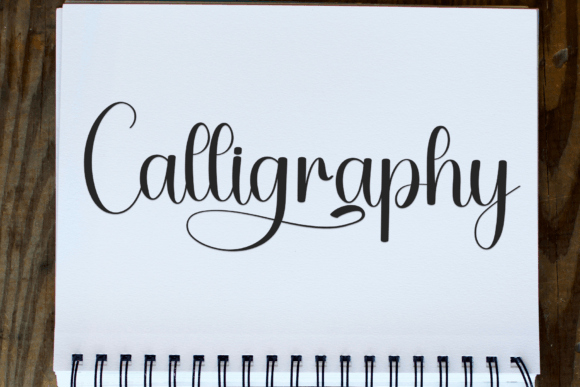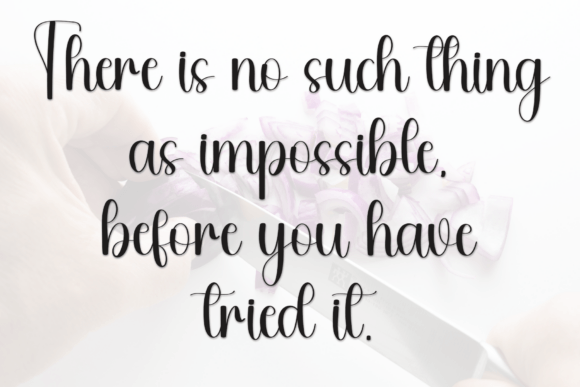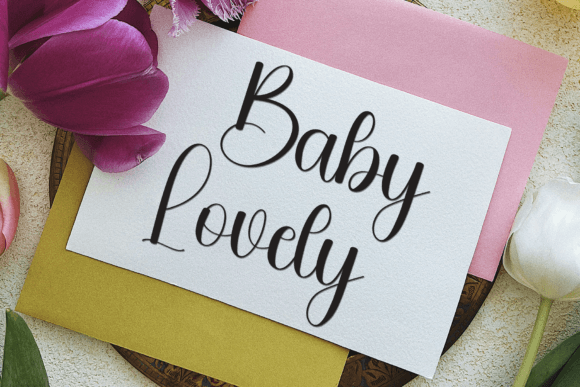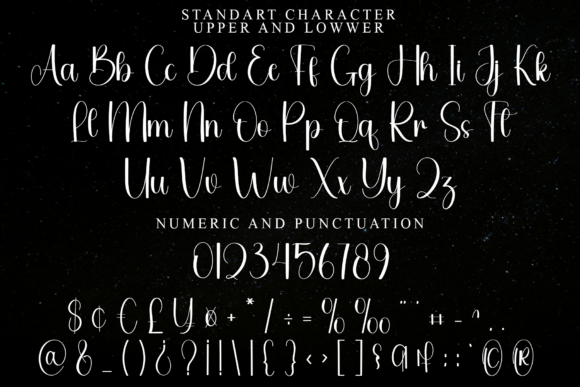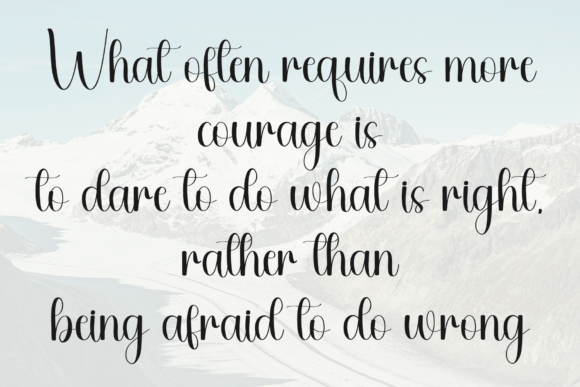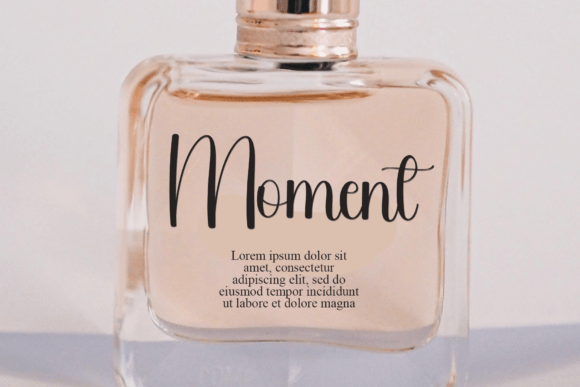
Unleash Your Creativity with the Babyish Font
Do you ever find yourself scrolling through Instagram, mesmerized by the perfect calligraphy or beautifully crafted typography? You’re not alone. We’ve all been there, inspired by the creative genius of others and itching to try our hand at something new. For designers and creatives, finding the right font can be the difference between a good idea and a great one.
Enter the Babyish Font, a magical script font that’s as elegant as it is versatile. With its unique blend of style and sophistication, this font is perfect for anything from Instagram captions to DIY projects. Whether you’re a seasoned designer or just starting out, the Babyish Font is a valuable addition to your toolkit.
So why settle for ordinary when you can have extraordinary? With the Babyish Font, you’ll be able to turn even the most basic ideas into stunning works of art. Get ready to unleash your creativity and make your mark with this beautiful, babyish font.
Babyish Font Key Features
- Unique Characteristics: The Babyish Font features a playful, cursive script with rounded edges and a soft, whimsical feel, making it perfect for children’s products, nursery decor, and family-oriented brands.
Babyish Font Review
Overall, I think Babyish Font is a cute and playful font that can add a touch of whimsy to your designs. ✨ It’s perfect for projects that need a more childlike or vintage vibe. The font is well-documented and easy to use, making it a great option for designers of all levels.
- Unique and quirky design
- Perfect for child-related projects or retro themes
- Well-documented and easy to use
However, I do have a few concerns about the font’s limitations. ⚠️ Firstly, it’s not suitable for formal or professional projects, as it can come across as too playful or immature. Additionally, the font may not be as readable in smaller sizes or for people with visual impairments.
- Not suitable for formal or professional projects
- May not be readable in smaller sizes or for people with visual impairments
Overall, I think Babyish Font is a great option for designers who want to add a touch of whimsy to their projects. With its unique design and ease of use, it’s a great choice for child-related projects or retro themes. However, it’s not a one-size-fits-all solution, and designers should be aware of its limitations.
The Babyish Font is perfect for:
- Children’s products and packaging
- Infant and toddler advertising
Use the Babyish Font in combination with other playful fonts to create a whimsical design. Experiment with different font sizes and colors to add visual interest. Consider pairing the font with cute illustrations or graphics to enhance the overall design.